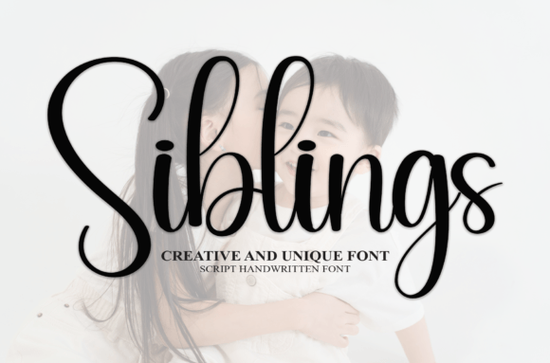
Looking for a Siblings Font that feels warm, friendly, and easy to use? This sweet handwritten typeface brings a personal, hand-lettered feel to invitations, greeting cards, and everyday design projects. It's the kind of font that looks like a friend wrote it casual but polished enough for real print work.
If you design wedding stationery, sell printables, or create social media graphics, a good handwritten script can save you hours of searching. Siblings Font fits that need with its neat lettering and approachable style. Let's look at what makes it worth adding to your font library.
What Makes Siblings Font Different from Other Handwritten Scripts?
There's no shortage of handwritten fonts online. So what stands out about this one?
Siblings Font strikes a balance between casual and clean. Some script fonts lean too far into messy territory they look artistic but become hard to read at small sizes. Others feel too stiff and lose that handmade charm.
This font lands in the middle. Each letter connects smoothly, and the overall flow stays fresh and neat without looking robotic. That makes it a practical pick for projects where readability matters just as much as personality.
Compared to more ornate options like the Beautiful Chamomile Font, Siblings keeps things simpler. It doesn't try to overwhelm with swirls and flourishes. Instead, it lets the words speak for themselves with a gentle, approachable tone.
What Can You Use This Font For?
The short answer: anything that needs a friendly, personal touch. Here are some of the most common uses designers and crafters rely on:
- Wedding invitations and save-the-dates The soft, handwritten look pairs well with formal and semi-formal layouts
- Greeting cards Birthday, thank-you, or holiday cards feel more personal with a script like this
- Quote prints and wall art Short phrases and motivational quotes come to life in a handwritten style
- Social media graphics Instagram stories, Pinterest pins, and Facebook posts all benefit from a casual font
- Logo design for small businesses Bakeries, florists, boutique shops, and cafés often want that hand-crafted look
- Print-on-demand products Mugs, tote bags, and t-shirts with handwritten text sell well in Etsy and Redbubble shops
For wedding-specific projects, it pairs nicely with elegant signature-style typefaces that add a more formal counterbalance. You could use Siblings for body text and a classic script for names and headings.
Does It Pair Well with Other Fonts?
Yes and this is where Siblings Font really shows its versatility. Handwritten scripts usually work best alongside a clean sans-serif or a simple serif. Think fonts like Montserrat, Lora, or even a bold slab serif for contrast.
If you want to stay within the handwritten family, try mixing it with something bolder like Palm Bay Social Font for headings. The difference in weight gives your layout visual hierarchy while keeping a cohesive, relaxed style.
For a more laid-back, coastal vibe, the Santa Catalina Font is another option worth exploring. It shares that same friendly energy but with a slightly different personality, which can help you mix things up across a brand or product line.
A good pairing formula to remember:
- Heading: Bold or decorative script
- Subheading: Clean sans-serif
- Body/accent: A light handwritten font like Siblings
Is It a Good Choice for Print-on-Demand Sellers?
Print-on-demand sellers need fonts that work well on physical products. That means the letters should stay legible at different sizes, hold up on various materials, and not fall apart when printed on fabric or ceramic.
Siblings Font handles this well because its strokes are consistent and clean. You won't get the thin, wispy lines that sometimes disappear on dark backgrounds or textured surfaces. This is a real practical advantage when you're uploading designs to platforms like Merch by Amazon, TeeSpring, or Printful.
Another plus: a friendly handwritten font like this appeals to a wide audience. It's not too niche or too trendy, so designs using it tend to have longer shelf life in your shop.